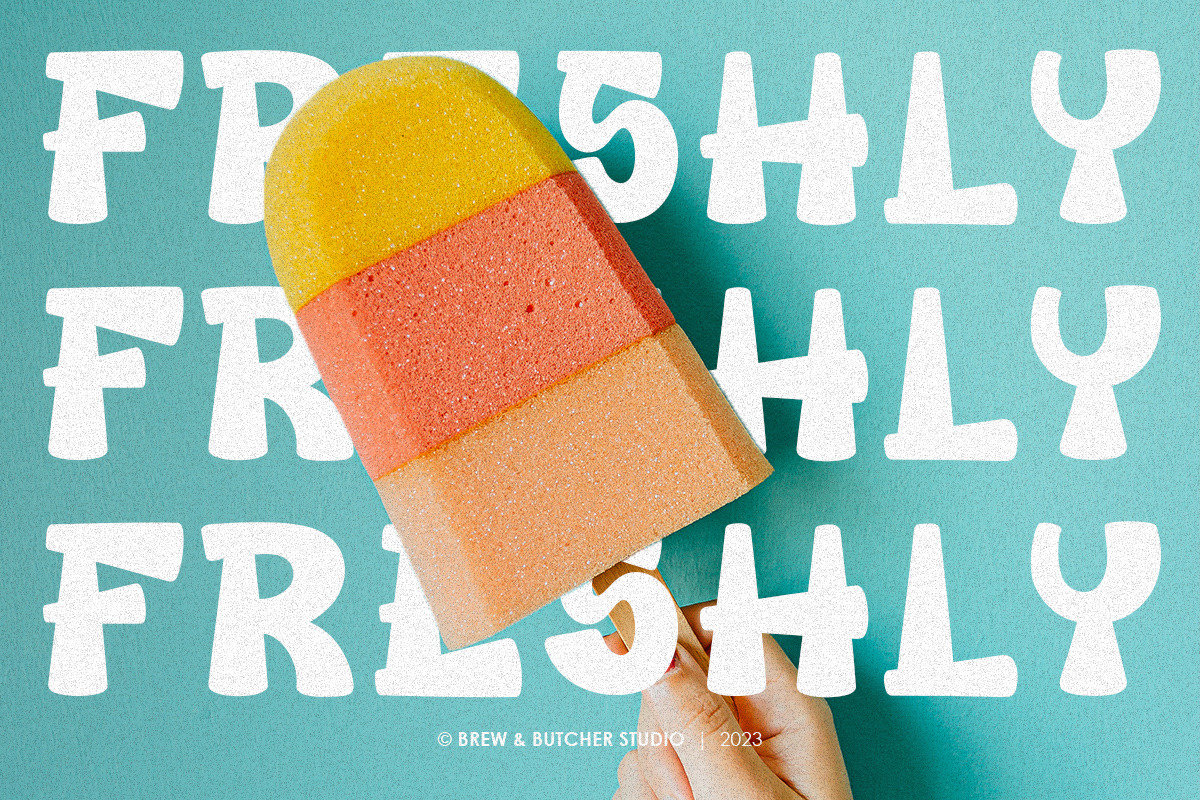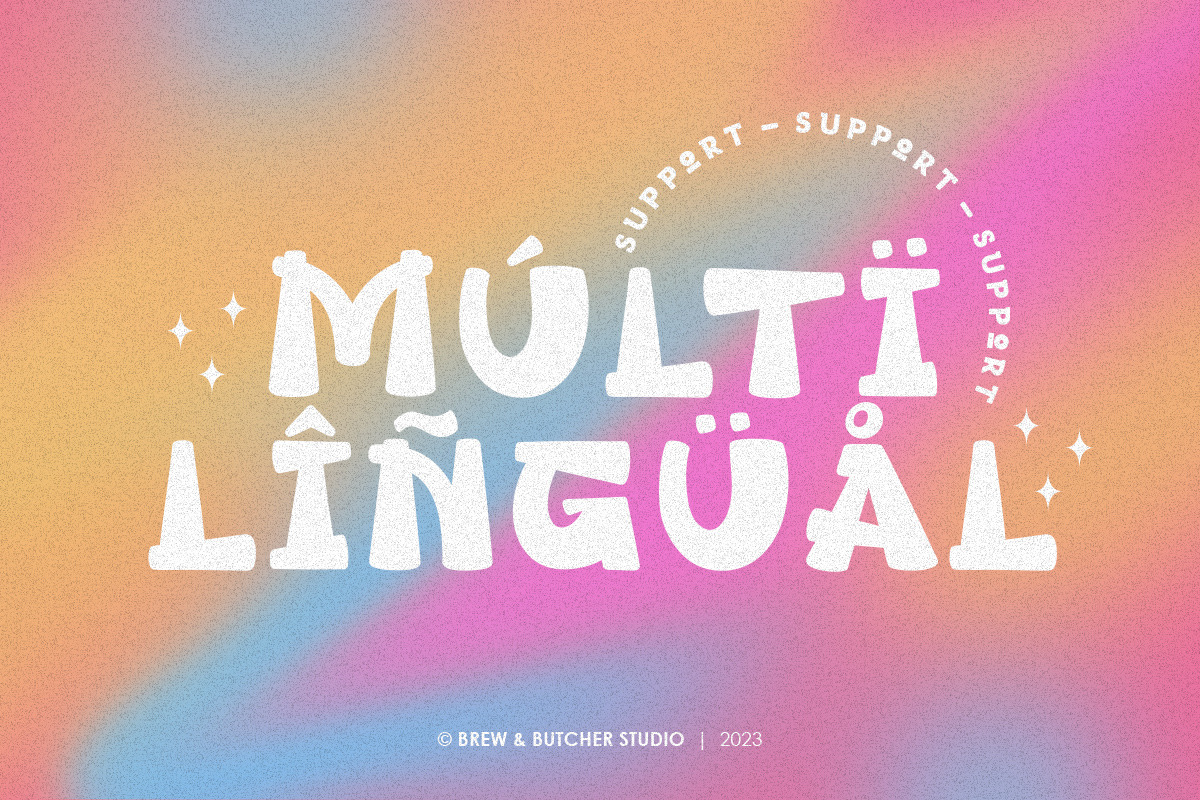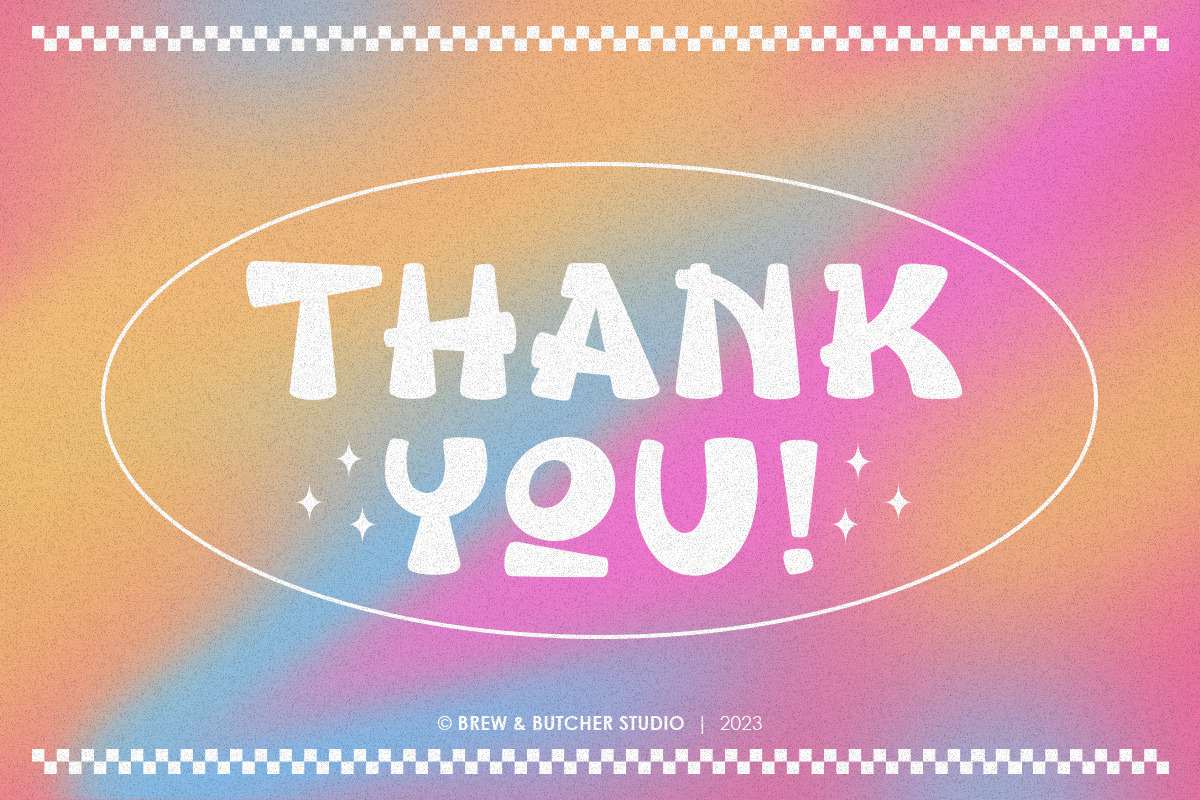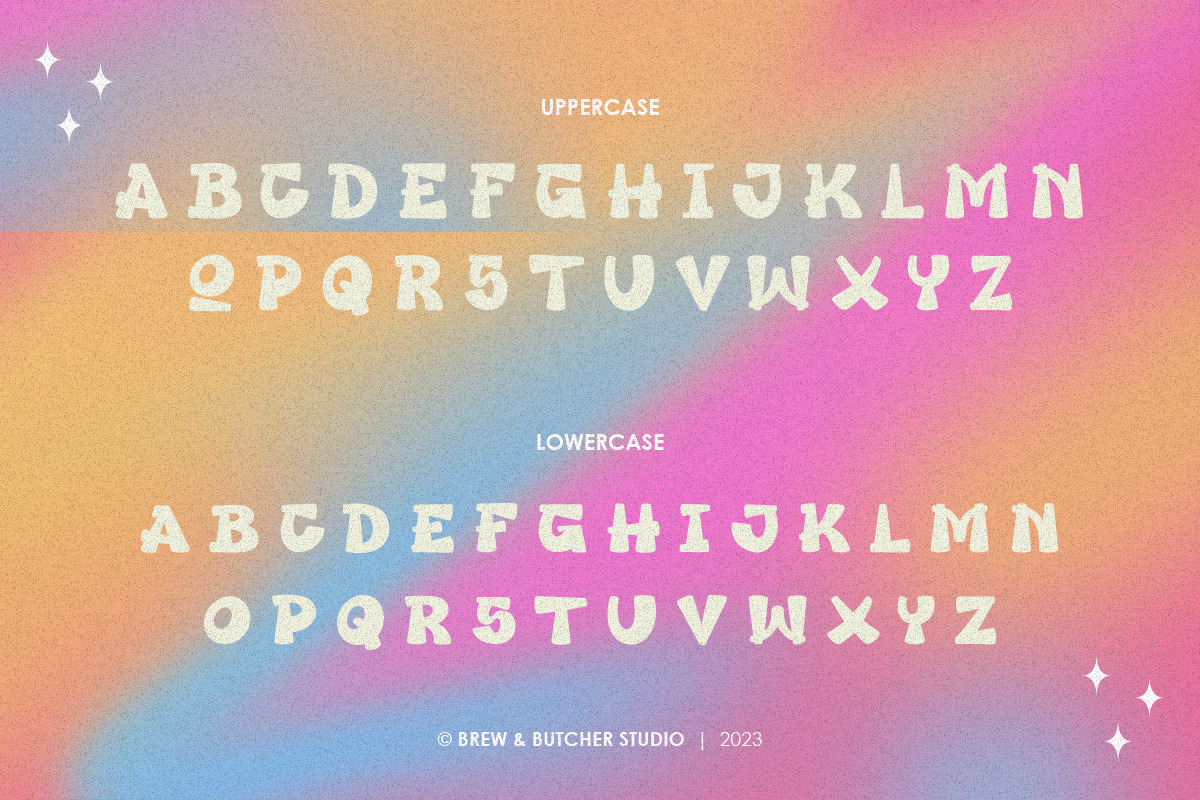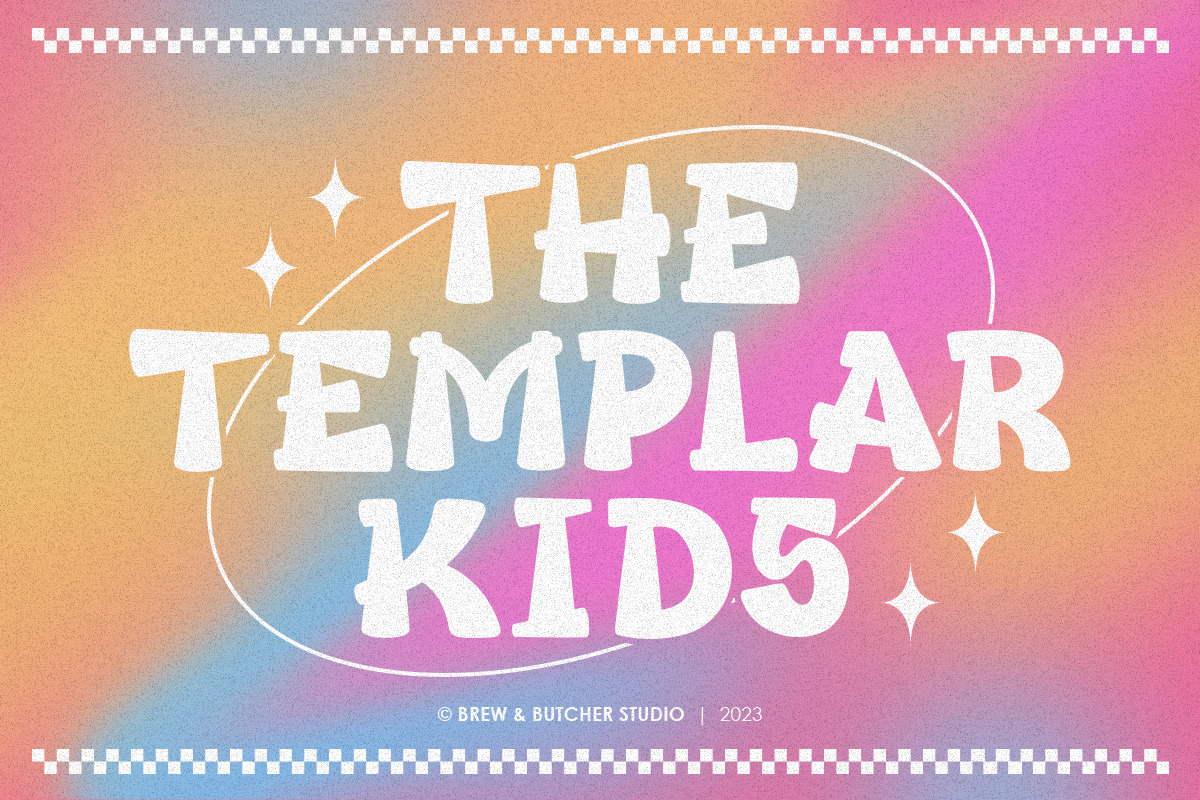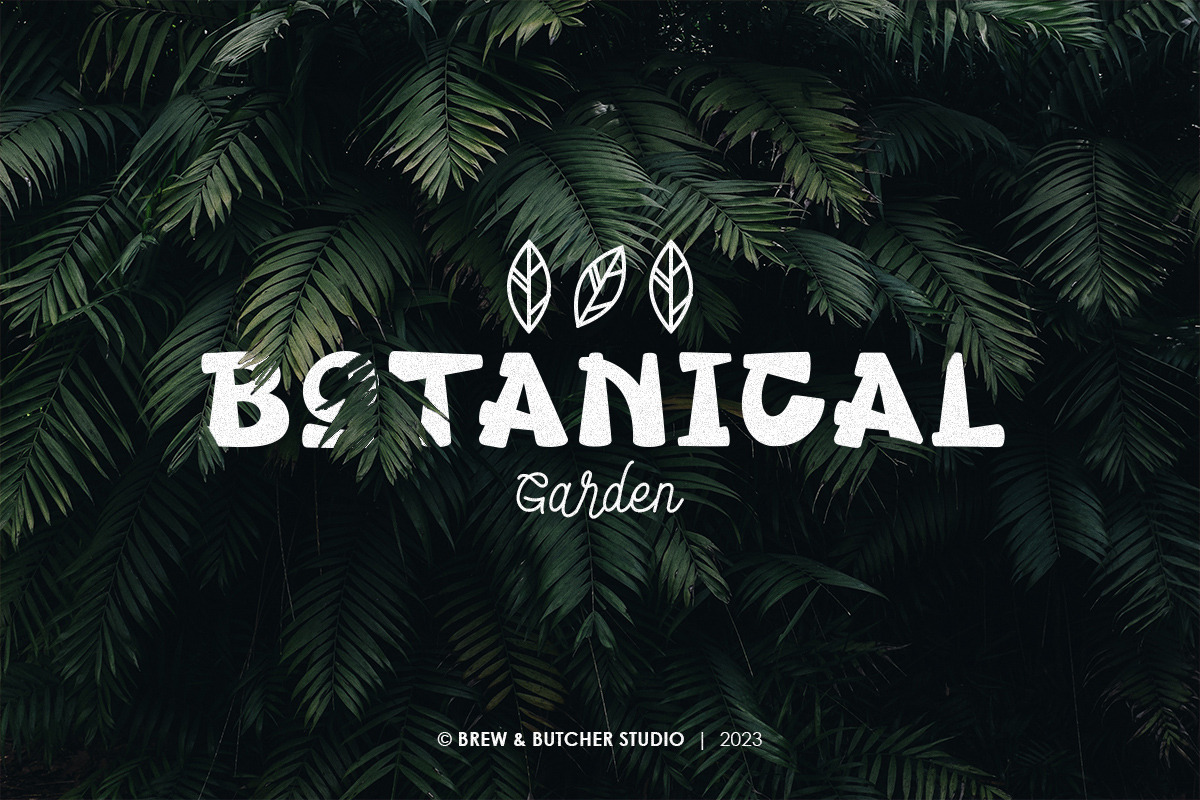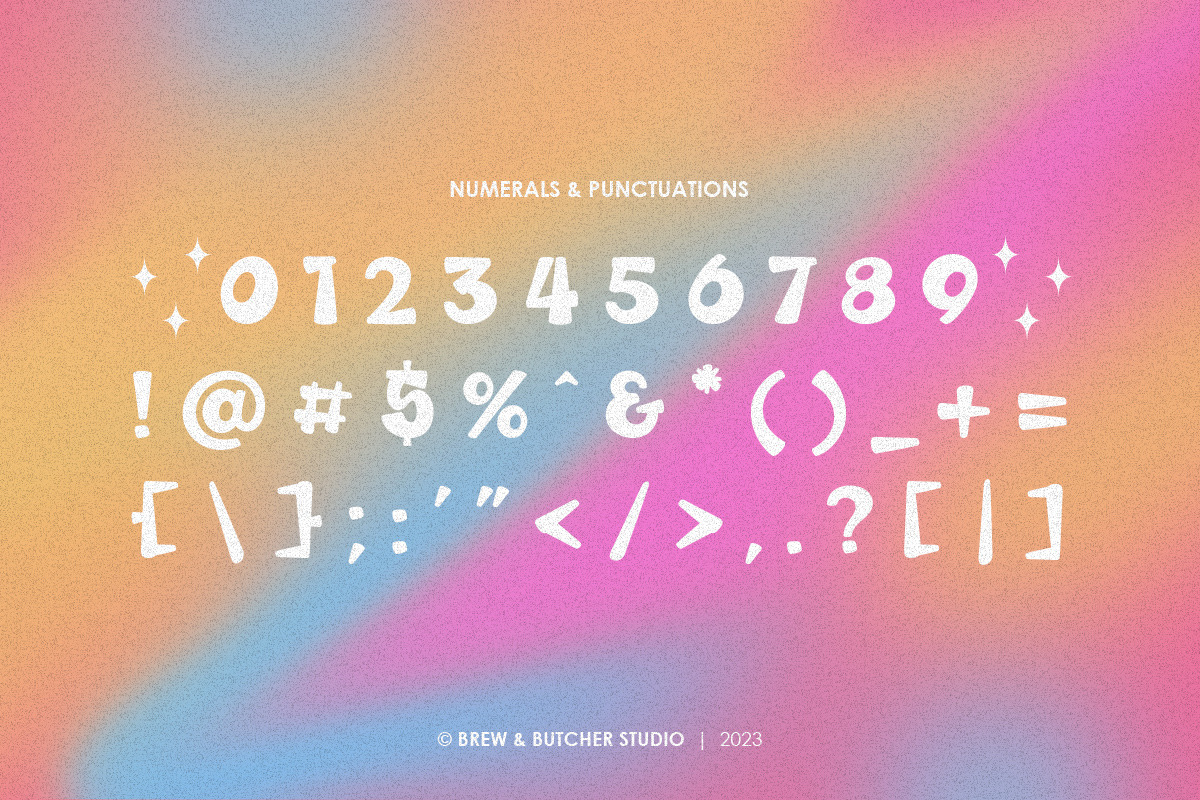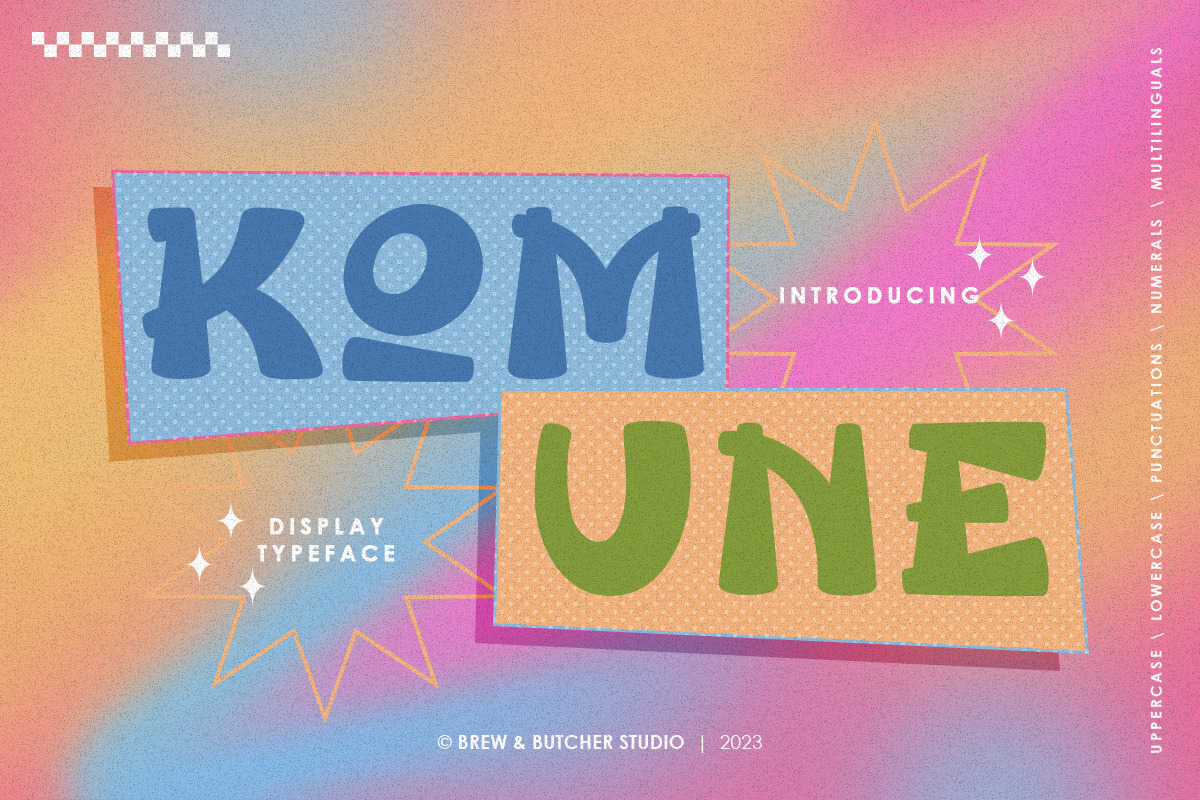
Komune | Display Typeface
Komune is a Letters that have a smooth shape, have very unique comic characteristics. Inspired by a box and blends together to give the impression of a fun letters, so this font is perfect for comic-themed designs. This font is best to use for header or headline, poster, flyer, banner, landingpage, portfolio, name write, album covers, and etc.
- Multilanguage